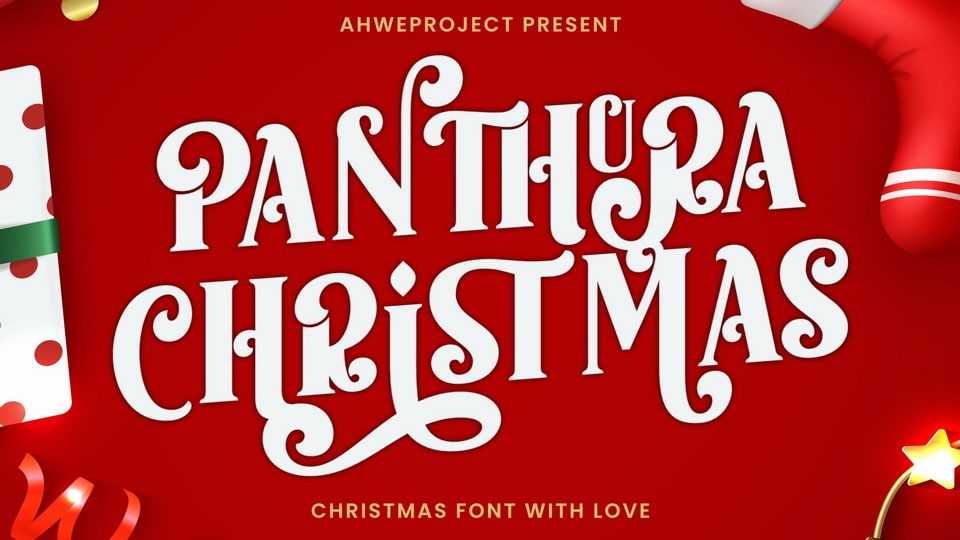
Download Panthura Christmas font, a festive and incredibly classy serif typeface. It is ideal for any of your winter break creations, so add it to your designs and bring them to life!